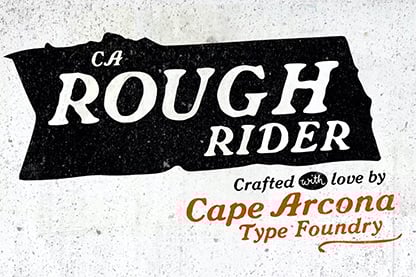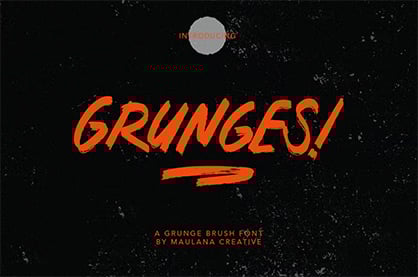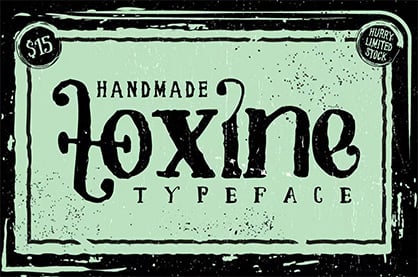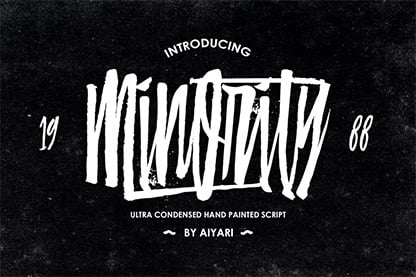
25+ Best Free Distressed Fonts (& Grunge Fonts)
If you want to give your text a weathered look, use a grunge or distressed font. Depending on the context, these fonts can convey either an edgy urban vibe or a vintage style.
10+ Best Distressed Fonts From Envato Elements
1. Visage Demolished Grungy Fonts (OTF)
"Demolished" is just the right word for this grunge distressed font. The letters look as if they've been attacked with a sand blaster, or perhaps just rusted away over decades. This uppercase font is the perfect choice for titles and headlines where you want that grunge appeal.
2. Distractor Grunge Distressed & Rough Font (OTF, TTF)
Distressed can mean different things—this font has more of the look of a letterpress font or an old-fashioned stamp, where not all of the ink has come through on the page. It has a very tactile feeling, and it comes in OTF and TTF formats, with 280 glyphs.
3. Fake Empire Distressed Letters Font (OTF)
In these days of digital wizardry, it's refreshing to come across a font that was created the old-fashioned way: with paper, glue, and scissors. This is really cool if you like aggressive fonts as well. You can see the retro grunge style at work in this striking display font. You wouldn't want to use it for large amounts of text, but for an attention-grabbing headline, it's perfect.
4. Habanos Retro Distressed Letters Font (OTF)
Here's another one for the letterpress fans out there. You don't have to get your hands dirty with ink and paper to create that wonderful retro quality: just download Habanos! It's more than a typeface—it's a full-featured toolkit that includes regular and light versions, as well as 30 JPG textures, 33 high-resolution vector illustrations, and ten premade logos. That's hard to beat!
5. Gutenberg Grunge Scratch Font (OTF, TTF)
It was Johannes Gutenberg, of course, who started the printing revolution back in medieval Europe with his movable type technique. We've come a long way from there to digital fonts, but it's good to pay tribute with the Gutenberg font family. With its irregular edges and the look of partially transferred ink, this is a perfect distressed typewriter font for situations where you want to recreate the old look of ink on paper. And you get 296 glyphs, with multi-language support.
6. Tamaki-Pro Grunge Typography (OTF)
The creators of Tamaki Pro promise that "every letter is different", and they've achieved that by applying contextual substitutions, with five different alternatives for each letter. As long as you use software that supports OpenType features, each letter will be replaced automatically with alternative versions to give you plenty of variety.
7. Bladekade Distressed Stencil Font (OTF)
Can't you just see Bladekade on a stylish T-shirt or hoodie design? Or perhaps you could use it for a logo? This edgy font has a hand-drawn style combined with a grungy, weathered quality, making it perfect for lettering, branding, posters, and more.
8. Moorgate Distress Font (OTF)
Font designer Simon Stratford created Moorgate by hand, with a brush and ink pot, inspired by the hand lettering on U2's Achtung Baby album. This distressed script font is best used at a larger point size, for headlines and titles. Make sure to switch on discretionary ligatures to get the full set of variations in this impressive typeface.
9. Hoverage Typeface Urban Font (OTF)
Hoverage is another grunge font with a letterpress look and feel. It offers both a regular and vintage version, with uppercase and lowercase letters and numbers. Use it to give your project a modern style, with a retro twist.
10. Vescona Grunge Serif Font (OTF, TTF, WOFF)
Vescona is an interesting combination: it's quite a traditional, elegant serif font, but with a grunge texture that transforms it and gives it a rustic vibe. You'll get uppercase and lowercase characters, numerals, punctuation, and multilingual glyphs.
11. Portico Urban Rough (OTF)
Portico Urban Rough is a wonderful option, offering not only a weathered texture, but also those filled letters. Like most distressed fonts, it's best used in small doses, but for a striking headline or logo, it could make just the right impression.
12. Funkrocker Distressed Font (OTF)
Looking for something a little rough around the edges? Try Funkrocker, a grunge distressed font with some funky glyphs to give your text the energy and fizz it needs. It comes with plenty of accents, punctuation, alternates, and support for the Cyrillic alphabet. This fun, creative typeface would look great on an album cover or poster.
13. Stupid Meeting (OTF)
If you've ever worked in an office, you've probably sat through a stupid meeting at some point. You know, the ones where you learn nothing but end up with a notepad full of doodles and scribbles. The Stupid Meeting font is inspired by those corporate nightmares, with its all-caps, hand-scribbled appeal. It also has plenty of sophistication, with basic/advanced Latin, diacritics, punctuation, and kerning.